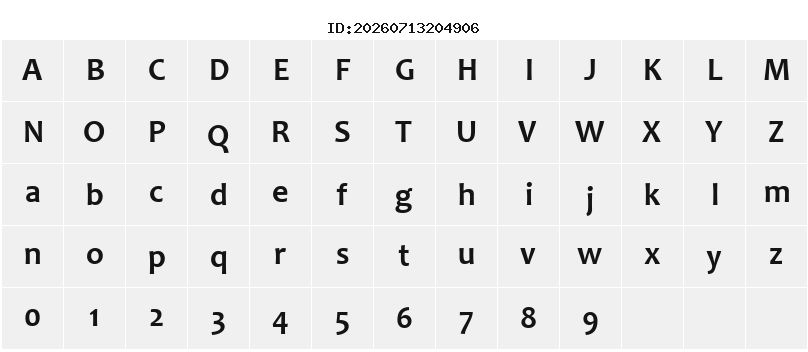
Candara Preview
• Font Name: Candara
• Designer: Gary Munch
• Manufacturer: Microsoft Corporation
• Description: Candara is a casual humanist sans with verticals showing a graceful entasis on stems, high-branching arcades in the lowercase, large apertures in all open forms, and unique ogee curves on diagonals. The resultant texture is lively but not intrusive, and makes for a friendly and readable text.
Candara.ttf is a modern, elegant sans-serif font designed for ultimate readability and visual harmony. Perfect for branding, headlines, web design, and print materials.